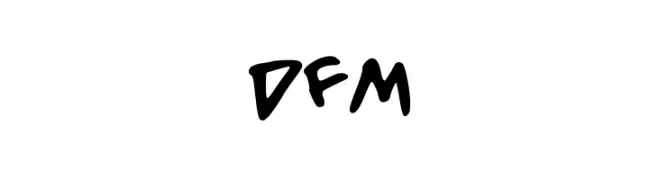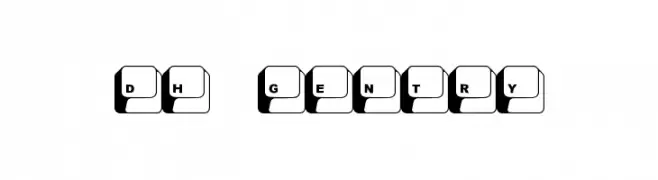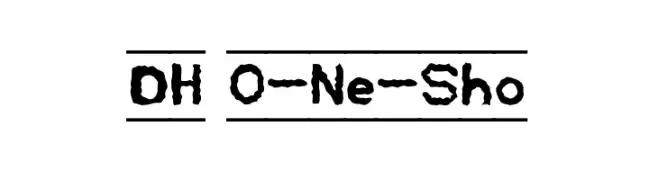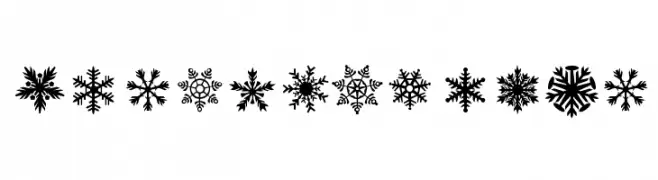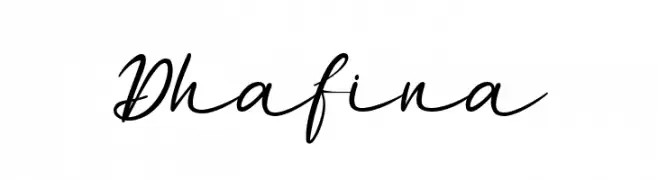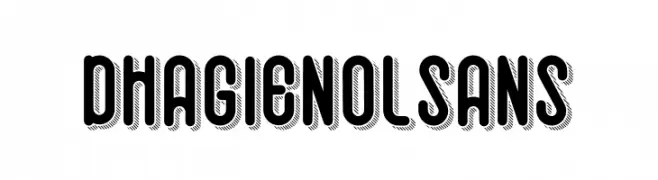
( Fonts by Brandon Ballard )
A bold, hand-drawn font with an energetic and playful style.
( FOD - www.geocities.co.jp/siliconvalley/1286/ )
A 3D keyboard keycap-style font with bold, uniform characters.
( FOD - www.geocities.co.jp/siliconvalley/1286/ )
A playful, hand-drawn font with irregular, textured edges.
( David Holm - www.stompstock.com )
A decorative snowflake dingbat set with diverse, intricate designs.
( Dry Heaves - www.drybohnz.com/ )
A decorative font inspired by ancient Ugaritic script with bold, angular characters.
A fluid and graceful script font with a modern, elegant style.
A bold, shadowed font with a three-dimensional effect, perfect for striking designs.
A bold, italicized font with angular, dynamic characters.
( Cotbada Studio - Isfani - creativemarket.com/Cotbada_studio )
An elegant, flowing cursive font with intricate connections and graceful curves.
( Cotbada Studio - Isfani - creativemarket.com/Cotbada_studio )
An elegant, cursive italic font with a flowing, handwritten style.
( Cotbada Studio - Isfani - creativemarket.com/Cotbada_studio )
A modern handwritten font with elegant, fluid strokes and a cursive style.
A bold, expressive handwritten font with dynamic curves and flourishes.
( Fonts by Integritype Studio )
A lively and expressive handwritten font with fluid strokes and decorative flair.
A bold, dynamic font with a slanted, energetic style.
A bold, distressed font with a grunge, vintage aesthetic.
( Fonts by junkohanhero )
A bold, distressed font with a vintage, textured appearance.
( Fonts by Steve Ferrera )
A bold, geometric display font with octagonal emblem motifs and strong contrast.
( Fonts by junkohanhero )
A bold, distressed font with a gritty, vintage punk aesthetic.
( Fonts by junkohanhero )
A bold, distressed font with a gritty, urban aesthetic.
A bold, geometric font with an industrial and modern aesthetic.
( dhe fontana - Fitri Apriliani - www.facebook.com/dhefontana )
A bold, geometric font with a blocky and modern design.
( - dhezonk.tumblr.com/ )
A decorative serif font with artistic, hand-drawn embellishments.
( - dhezonk.tumblr.com/ )
A bold, hand-drawn font with a playful and rustic style.
( Fonts by Rany Kudo )
A playful, whimsical font with hand-drawn, curly characters.
A playful, handwritten script font with consistent stroke thickness.
A fluid, handwritten font with a casual and approachable style.